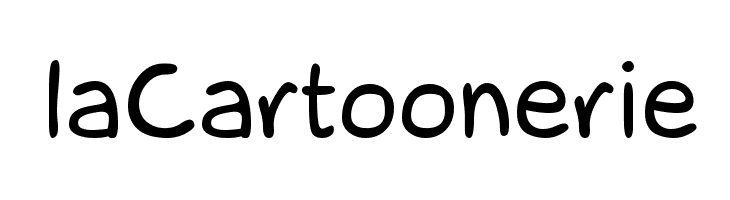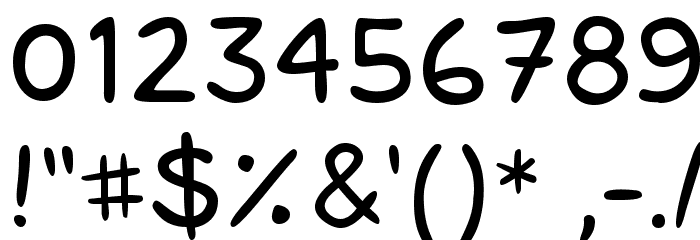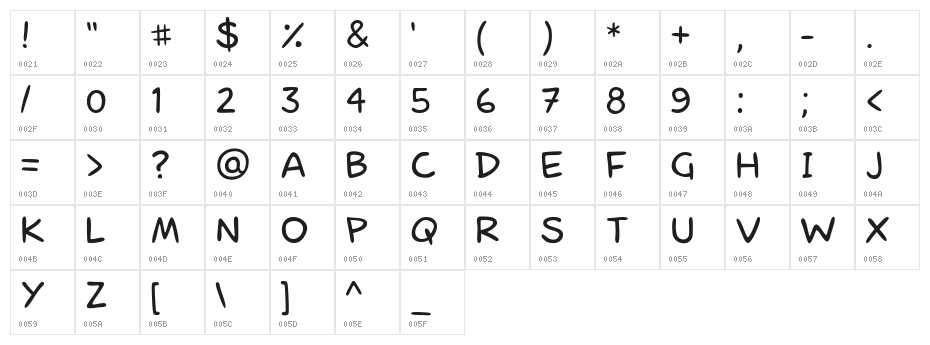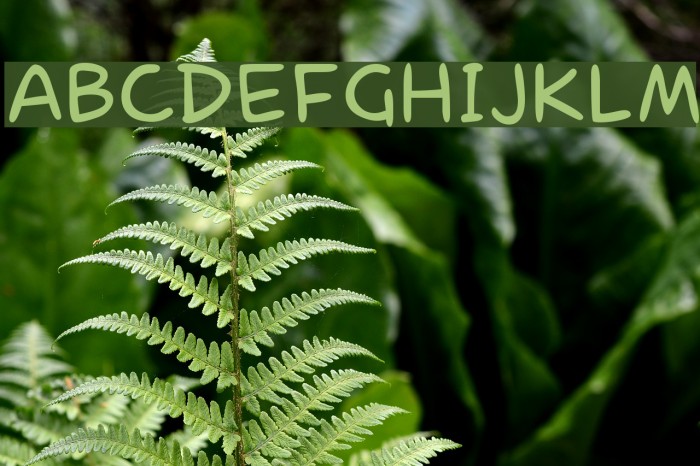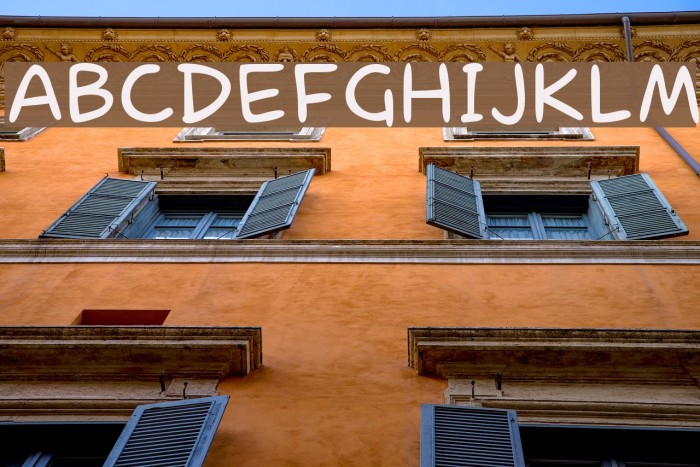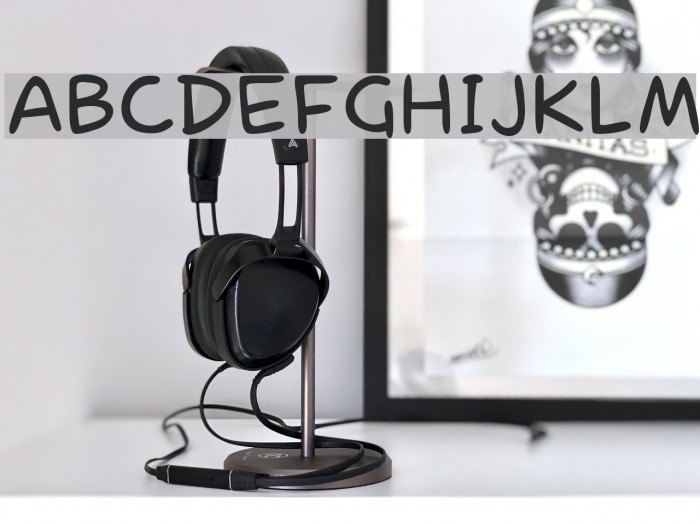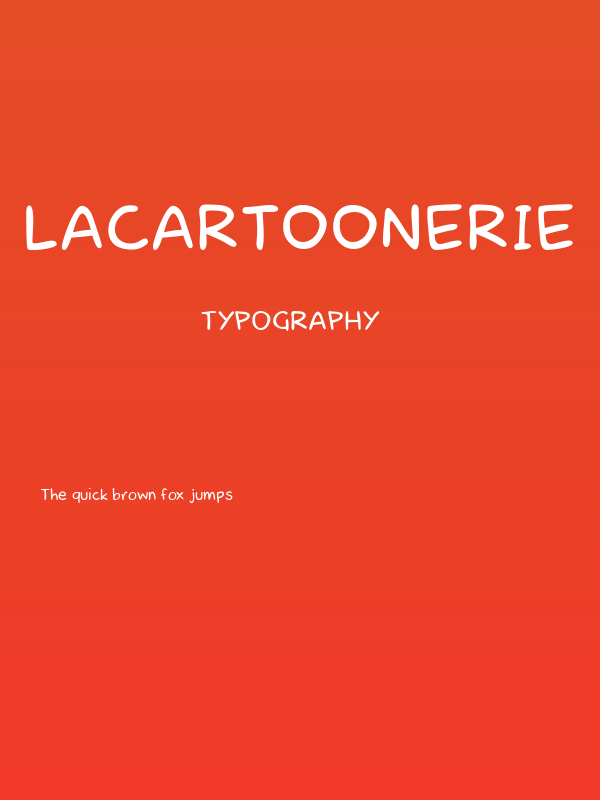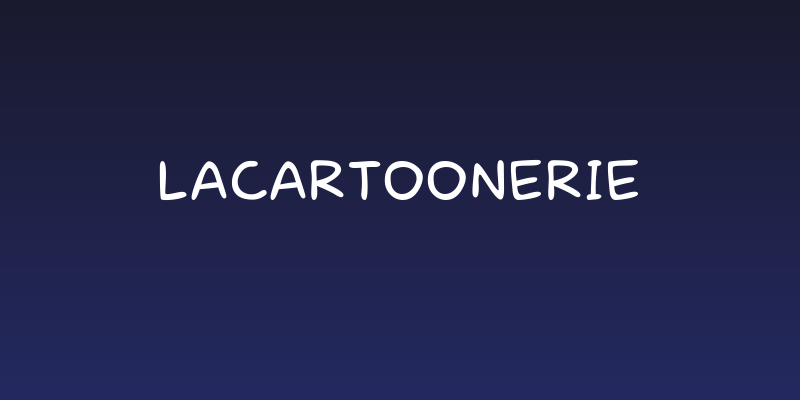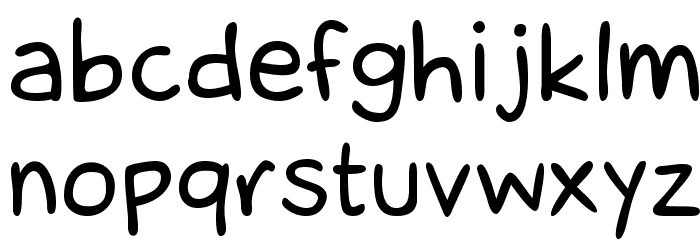
laCartoonerie Font
laCartoonerie Description
This playful and whimsical font features a handwritten style with rounded, smooth edges that give it a friendly and approachable appearance. The characters are slightly irregular, adding to the casual and informal feel. The font maintains a consistent stroke width throughout, with medium contrast that enhances readability while preserving its playful nature. The spacing between characters is normal, allowing for easy legibility without feeling cramped. This font is ideal for projects that require a fun and lighthearted touch, such as children's books, comic strips, or playful branding.
| Use Case | Headlines, Logos, Informal text |
| Proposed Projects | Children's books, comic strips, playful branding, greeting cards, and informal invitations. |